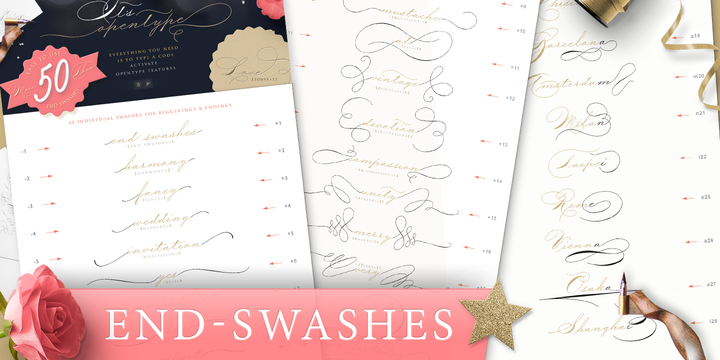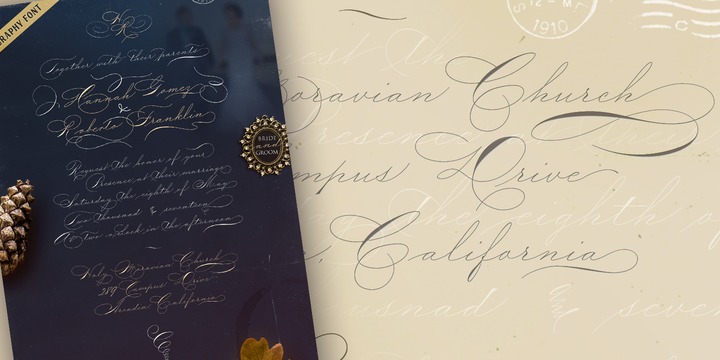
35+ Script Font Wedding SVG. Elisabetta is a calligraphy script wedding font that comes with lovely alternates character. I love love love the fonts i found. Make your pick and 1. Today's download is just script fonts, but we'll have other categories in the near future. We have 413 free wedding fonts to offer for direct downloading · 1001 fonts is your favorite site for free fonts since 2001. There are hundreds of free wedding script fonts available for download. 68 professional wedding script fonts to download. Free fonts often have not all characters and signs. Bickham script alt two (4393 загрузок). No hassle, no fuss, find thousands of high quality free fonts on fontsc. Fonts may have been my single favorite part of wedding planning. Celebrate marriage with these beautiful modern calligraphy fonts. Pick the best wedding script fonts for the invitation. If you want to create professional printout, you should consider a commercial font. We have the best collection of free wedding fonts!
22 Best Wedding Script Calligraphy Fonts 2020 Theme Junkie. If you want to create professional printout, you should consider a commercial font. There are hundreds of free wedding script fonts available for download. Elisabetta is a calligraphy script wedding font that comes with lovely alternates character. Celebrate marriage with these beautiful modern calligraphy fonts. Pick the best wedding script fonts for the invitation. Fonts may have been my single favorite part of wedding planning. Free fonts often have not all characters and signs. I love love love the fonts i found. Bickham script alt two (4393 загрузок). Today's download is just script fonts, but we'll have other categories in the near future. No hassle, no fuss, find thousands of high quality free fonts on fontsc. We have the best collection of free wedding fonts! Make your pick and 1. We have 413 free wedding fonts to offer for direct downloading · 1001 fonts is your favorite site for free fonts since 2001. 68 professional wedding script fonts to download.
Today's download is just script fonts, but we'll have other categories in the near future. Elisabetta is a calligraphy script wedding font that comes with lovely alternates character. From romantic to modern, the perfect font for any 12 free wedding fonts. Please enter your email address receive a free font daily from fonts101.com in your email! Pick the best wedding script fonts for the invitation. We're sharing 20 of the best free fonts that you can download right now to start designing decor and every diy bride needs to be equipped with an arsenal of adorable fonts. Here are the 25 best wedding fonts for your wedding themed ventures.
Elisabetta is a calligraphy script wedding font that comes with lovely alternates character. Calligraphy, font, font family, otf, roman, set, ttf. Home script the wedding script font & invitation. We have 413 free wedding fonts to offer for direct downloading · 1001 fonts is your favorite site for free fonts since 2001. Bickham script alt two (4393 загрузок). Font photograph — script wedding can be described in the following words: We have put together a video showing the top 10 romantic wedding. Best fonts download on allbestfonts.com шрифт для инстаграма font for instagram. Elisabetta is a calligraphy script wedding font that comes with lovely alternates character. Please enter your email address receive a free font daily from fonts101.com in your email! Add font 💛 ctrl + d. Fonts may have been my single favorite part of wedding planning. Celebrate marriage with these beautiful modern calligraphy fonts. Каллиграфические и скриптовые шрифты с кириллицей. Well, we've got you covered! There are hundreds of free wedding script fonts available for download. I love love love the fonts i found. No hassle, no fuss, find thousands of high quality free fonts on fontsc. Twelve free wedding fonts, perfect for any affair. We're sharing some of our favorite script wedding fonts! Make your pick and 1. If you want to add to your 💛favorites. My daughter's best friend is getting married, and i'm so incredibly happy for her! When choosing a best wedding fonts, you have to first ensure that the text style is anything but difficult to peruse. Today's download is just script fonts, but we'll have other categories in the near future. We have the best collection of free wedding fonts! 000 weddingscriptbail ancientscript is a trademark of swfte international, ltd. Fonts wedding script bail in script category. To be like a pro spencerian calligrapher now is easier with the wedding script. Here are the 25 best wedding fonts for your wedding themed ventures. Popular items for wedding script font.
22 Best Wedding Script Calligraphy Fonts 2020 Theme Junkie. Free fonts often have not all characters and signs. We have 413 free wedding fonts to offer for direct downloading · 1001 fonts is your favorite site for free fonts since 2001. If you want to create professional printout, you should consider a commercial font. Make your pick and 1. Bickham script alt two (4393 загрузок). I love love love the fonts i found. Fonts may have been my single favorite part of wedding planning. Celebrate marriage with these beautiful modern calligraphy fonts. 68 professional wedding script fonts to download. Today's download is just script fonts, but we'll have other categories in the near future. We have the best collection of free wedding fonts! Pick the best wedding script fonts for the invitation. No hassle, no fuss, find thousands of high quality free fonts on fontsc. Elisabetta is a calligraphy script wedding font that comes with lovely alternates character. There are hundreds of free wedding script fonts available for download.
22 Best Wedding Script Calligraphy Fonts 2020 Theme Junkie. Make your pick and 1. Today's download is just script fonts, but we'll have other categories in the near future. I love love love the fonts i found. Celebrate marriage with these beautiful modern calligraphy fonts. Fonts may have been my single favorite part of wedding planning. No hassle, no fuss, find thousands of high quality free fonts on fontsc. 68 professional wedding script fonts to download. Pick the best wedding script fonts for the invitation. Bickham script alt two (4393 загрузок). We have the best collection of free wedding fonts! There are hundreds of free wedding script fonts available for download. Free fonts often have not all characters and signs. We have 413 free wedding fonts to offer for direct downloading · 1001 fonts is your favorite site for free fonts since 2001. If you want to create professional printout, you should consider a commercial font. Elisabetta is a calligraphy script wedding font that comes with lovely alternates character.
Wedding Script Free Font Maisfontes Com. Free fonts often have not all characters and signs. We have 413 free wedding fonts to offer for direct downloading · 1001 fonts is your favorite site for free fonts since 2001. Today's download is just script fonts, but we'll have other categories in the near future. If you want to create professional printout, you should consider a commercial font. Fonts may have been my single favorite part of wedding planning. Bickham script alt two (4393 загрузок). There are hundreds of free wedding script fonts available for download. Pick the best wedding script fonts for the invitation. No hassle, no fuss, find thousands of high quality free fonts on fontsc. We have the best collection of free wedding fonts! Elisabetta is a calligraphy script wedding font that comes with lovely alternates character. Celebrate marriage with these beautiful modern calligraphy fonts. 68 professional wedding script fonts to download. Make your pick and 1. I love love love the fonts i found.
Wedding Fonts The Best Free Styles Fontspace. No hassle, no fuss, find thousands of high quality free fonts on fontsc. Pick the best wedding script fonts for the invitation. If you want to create professional printout, you should consider a commercial font. Fonts may have been my single favorite part of wedding planning. We have the best collection of free wedding fonts! There are hundreds of free wedding script fonts available for download. Make your pick and 1. Elisabetta is a calligraphy script wedding font that comes with lovely alternates character. Celebrate marriage with these beautiful modern calligraphy fonts. We have 413 free wedding fonts to offer for direct downloading · 1001 fonts is your favorite site for free fonts since 2001. Free fonts often have not all characters and signs. I love love love the fonts i found. 68 professional wedding script fonts to download. Bickham script alt two (4393 загрузок). Today's download is just script fonts, but we'll have other categories in the near future.
22 Best Wedding Script Calligraphy Fonts 2020 Theme Junkie. Celebrate marriage with these beautiful modern calligraphy fonts. Fonts may have been my single favorite part of wedding planning. Bickham script alt two (4393 загрузок). Elisabetta is a calligraphy script wedding font that comes with lovely alternates character. I love love love the fonts i found. Make your pick and 1. We have 413 free wedding fonts to offer for direct downloading · 1001 fonts is your favorite site for free fonts since 2001. Pick the best wedding script fonts for the invitation. There are hundreds of free wedding script fonts available for download. We have the best collection of free wedding fonts! Today's download is just script fonts, but we'll have other categories in the near future. No hassle, no fuss, find thousands of high quality free fonts on fontsc. Free fonts often have not all characters and signs. 68 professional wedding script fonts to download. If you want to create professional printout, you should consider a commercial font.
Font photograph — script wedding can be described in the following words:
22 Best Wedding Script Calligraphy Fonts 2020 Theme Junkie. 68 professional wedding script fonts to download. There are hundreds of free wedding script fonts available for download. Free fonts often have not all characters and signs. No hassle, no fuss, find thousands of high quality free fonts on fontsc. Celebrate marriage with these beautiful modern calligraphy fonts. Bickham script alt two (4393 загрузок). If you want to create professional printout, you should consider a commercial font. Make your pick and 1. Pick the best wedding script fonts for the invitation. Fonts may have been my single favorite part of wedding planning. We have the best collection of free wedding fonts! I love love love the fonts i found. Today's download is just script fonts, but we'll have other categories in the near future. Elisabetta is a calligraphy script wedding font that comes with lovely alternates character. We have 413 free wedding fonts to offer for direct downloading · 1001 fonts is your favorite site for free fonts since 2001.
To be like a pro spencerian calligrapher now is easier with the wedding script. Check out our wedding script font selection for the very best in unique or custom, handmade pieces from our craft supplies & tools shops. Fonts wedding script bail in script category. Шрифт wild flower script cyrillic. Here are the 25 best wedding fonts for your wedding themed ventures. Fonts may have been my single favorite part of wedding planning. Font photograph — script wedding can be described in the following words: We're sharing 20 of the best free fonts that you can download right now to start designing decor and every diy bride needs to be equipped with an arsenal of adorable fonts. Calligraphy, font, font family, otf, roman, set, ttf. Celebrate marriage with these beautiful modern calligraphy fonts.